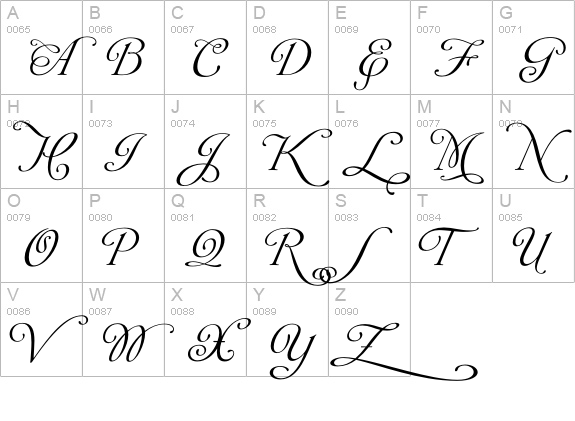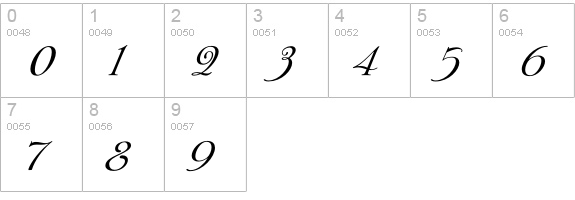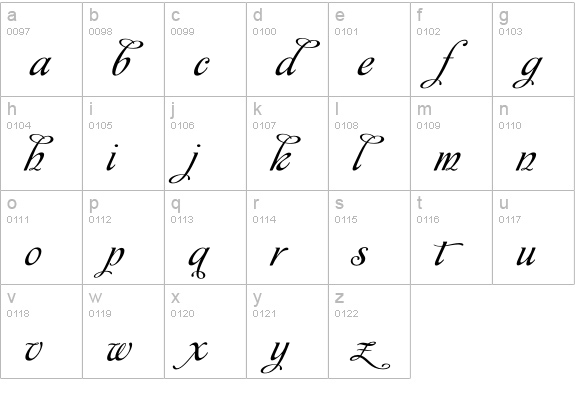
Affair font is a modern and stylish typeface that will elevate your design projects to a whole new level. With its elegant curves and sleek lines, this font exudes sophistication and charm. Perfect for branding, logos, invitations, and more, Affair font adds a touch of class to any design. What's even better is that Affair font is completely free to download at FontsMarket.com. Yes, you read that right - you can get your hands on this stunning font without spending a dime. So why wait? Add Affair font to your font collection today and watch your designs shine!